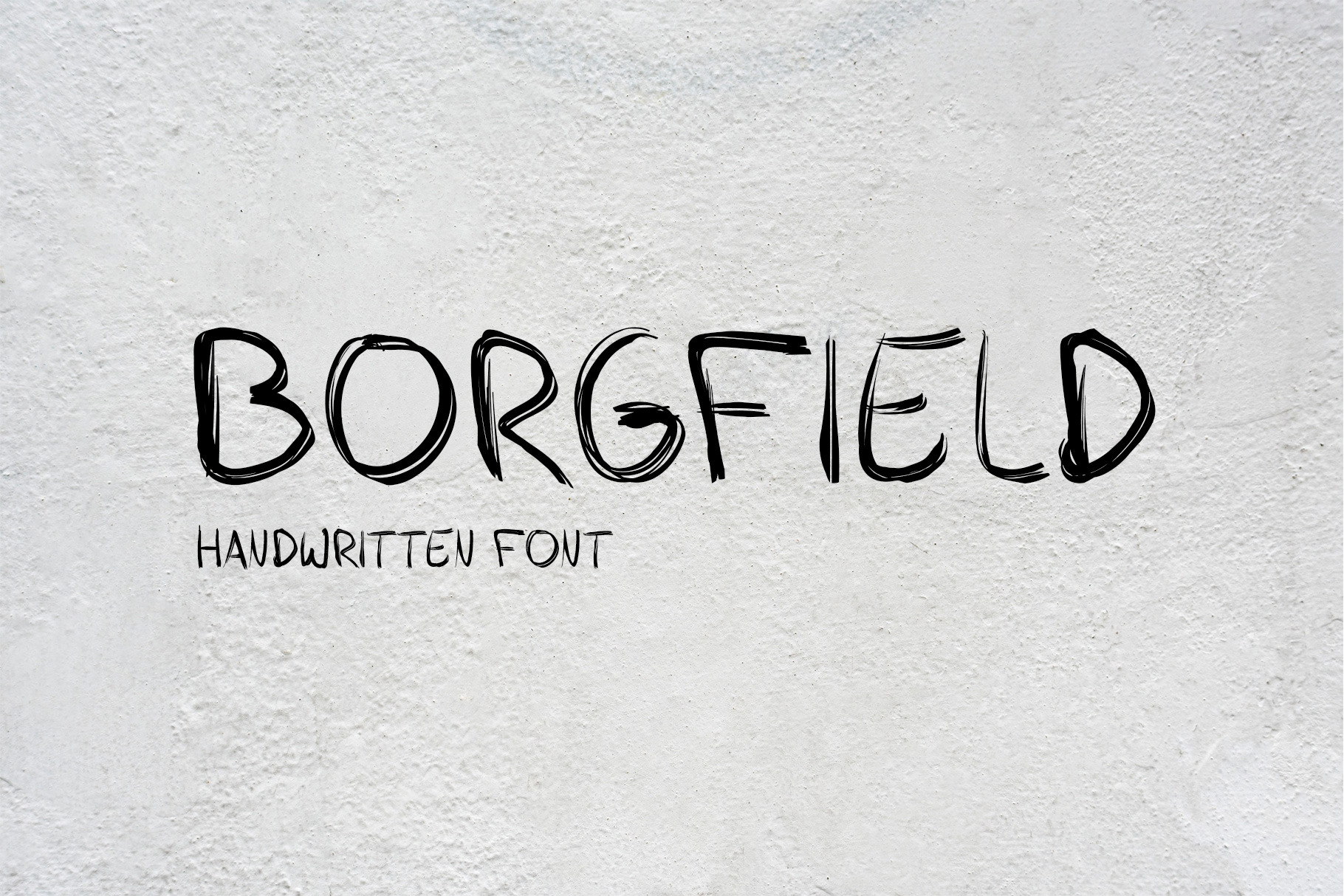
Borgfield | Handwritten Font
Borgfield is a handwritten script font that is carefully designed to suit your next creative project. It comes with uppercase letters, lowercase letters, numbers and punctuation.